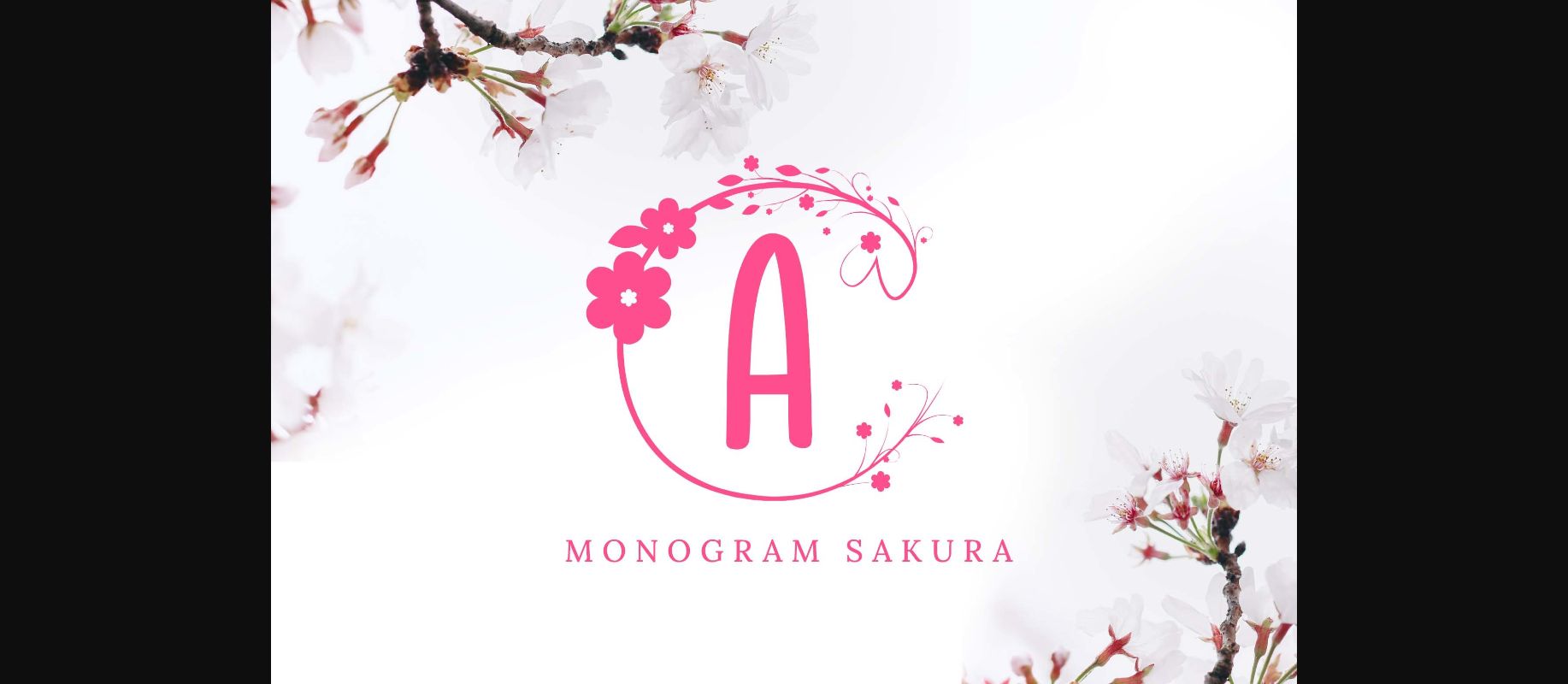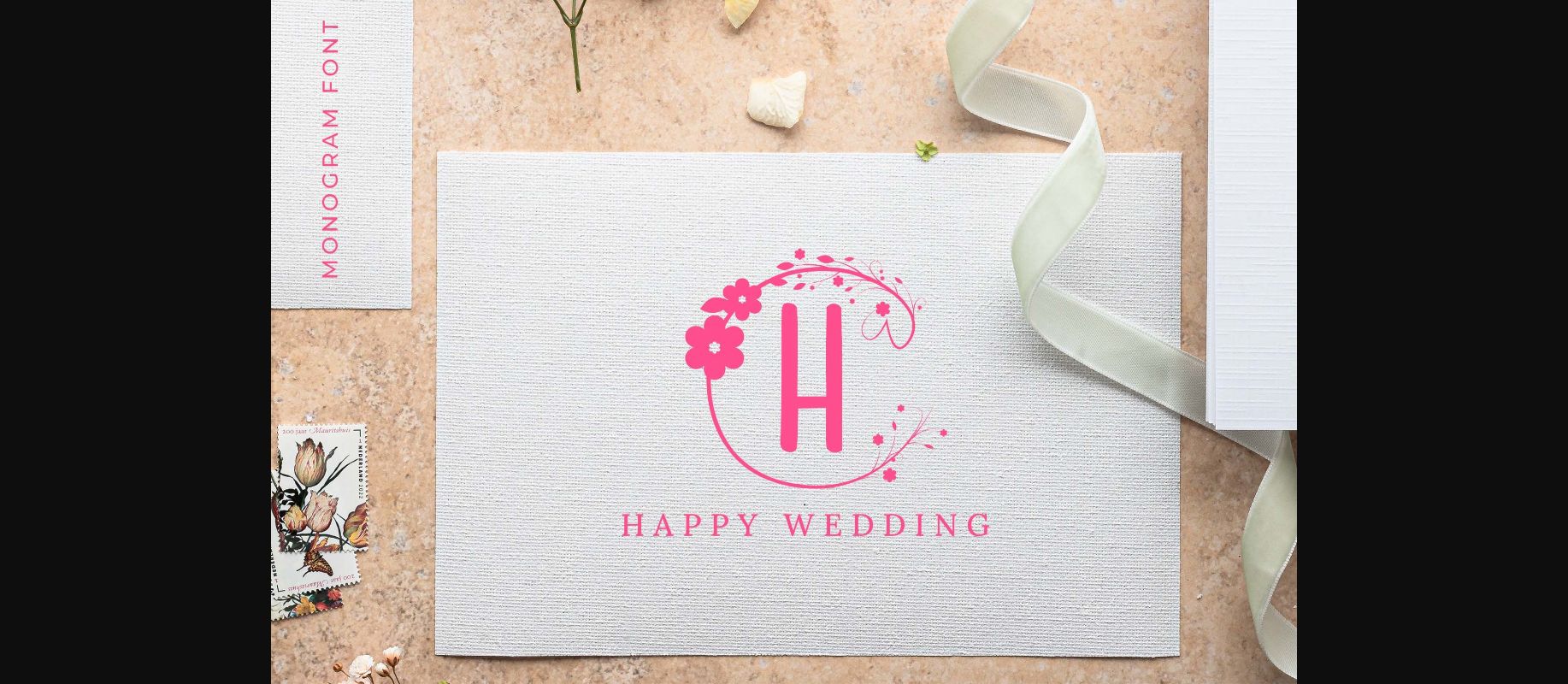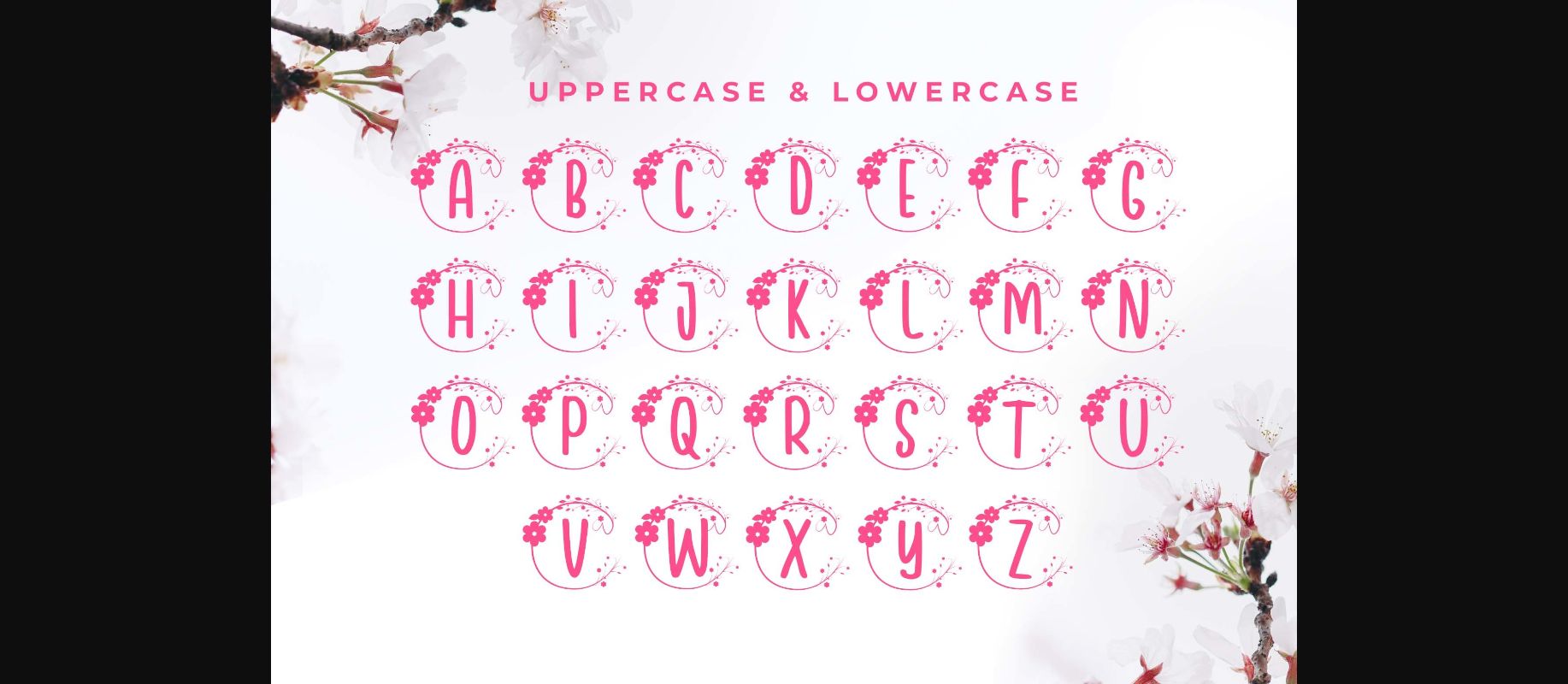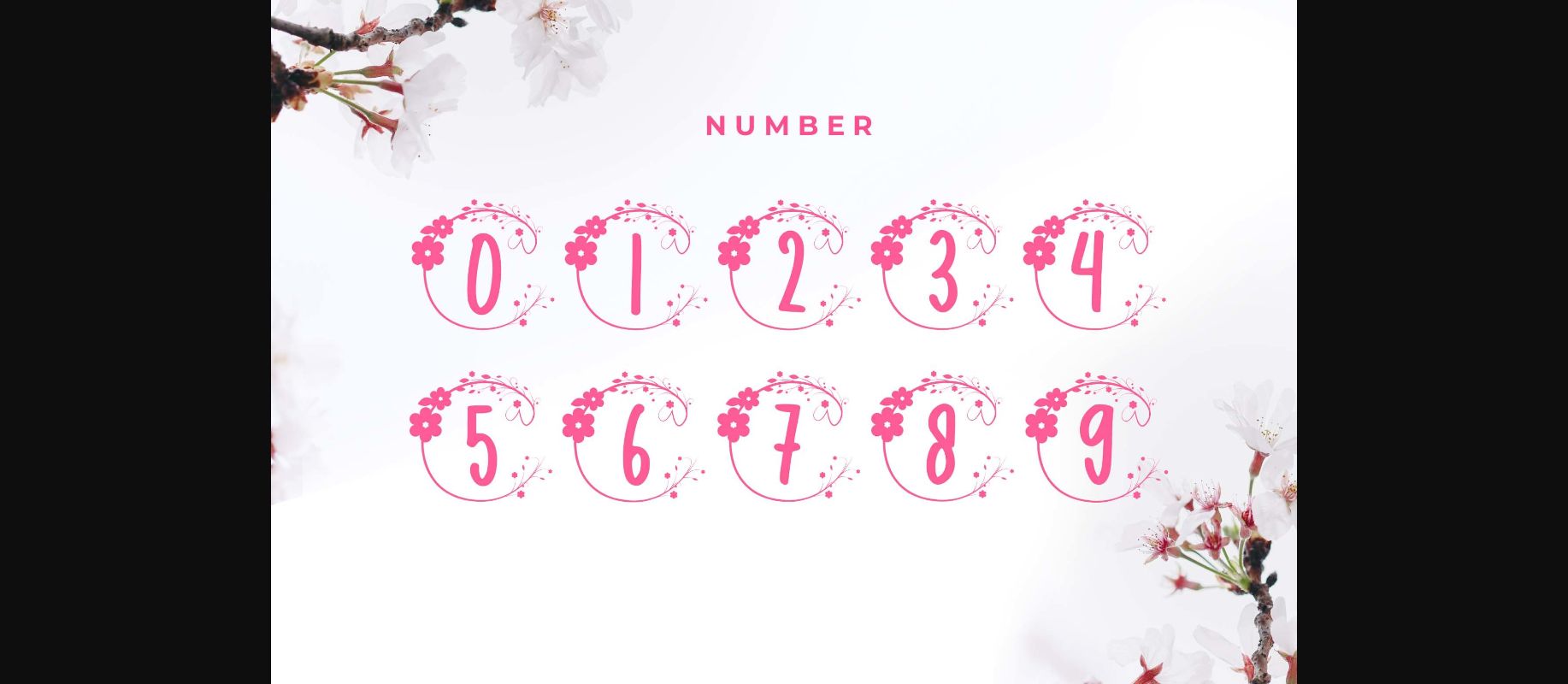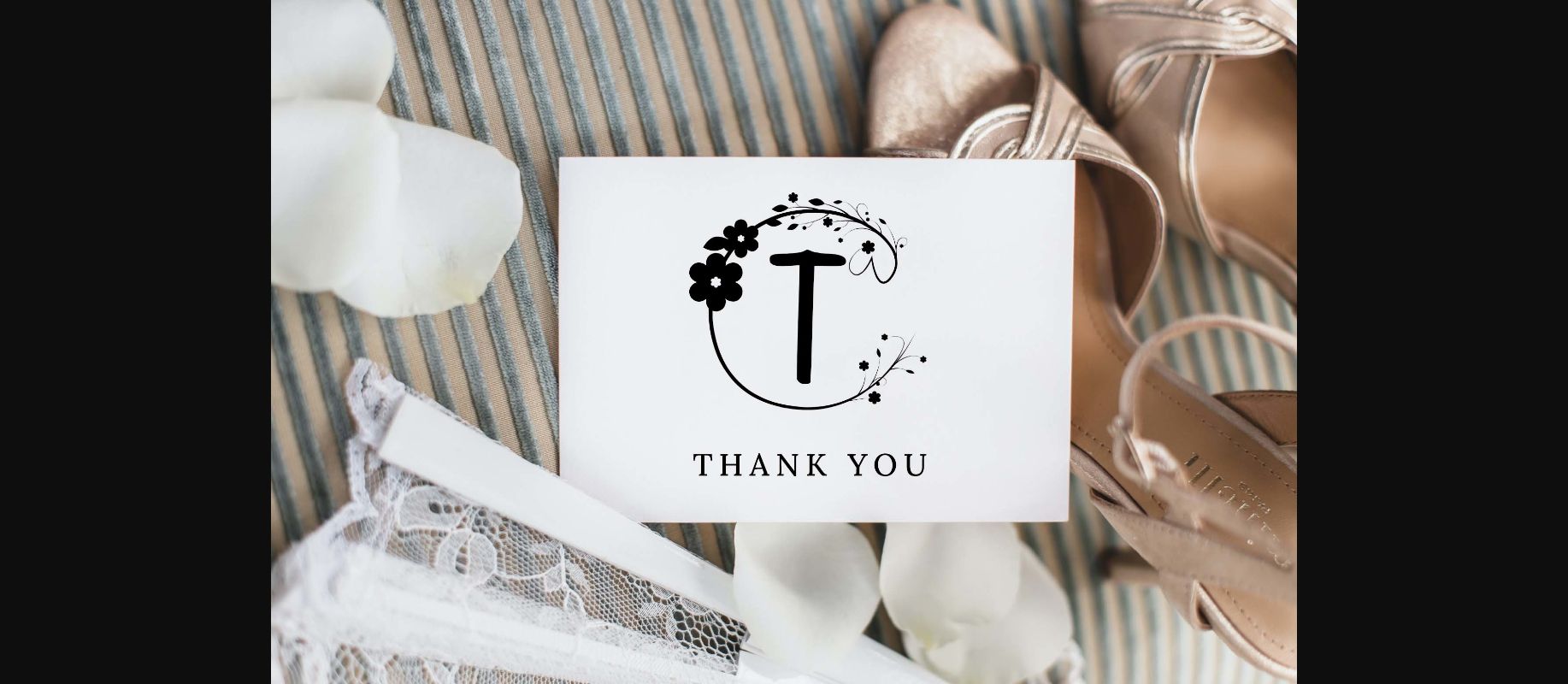
Monogram Sakura Font
About Monogram Sakura Font
Monogram sakura is a decorative font with a cute and beautiful cherry blossom ornament. Fall in love with its authentic feel and use it to create beautiful stationery artwork, eye-catching social media posts, branding logos, crafts, and cute greeting cards.